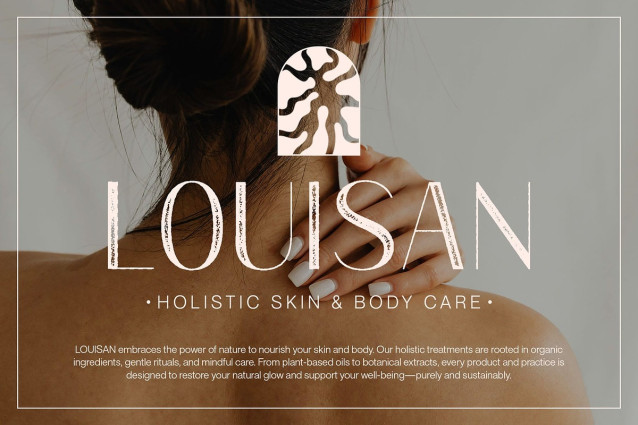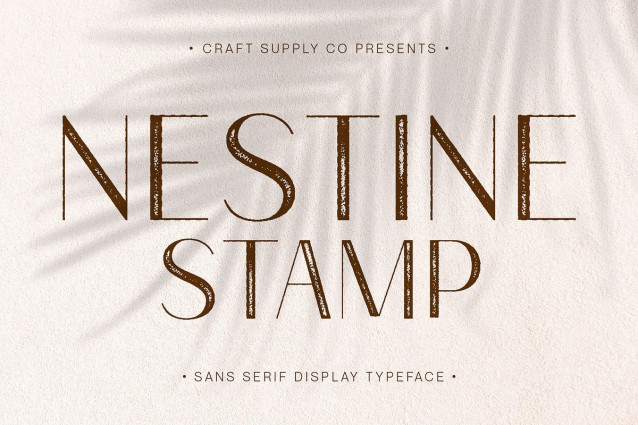
Nestine Stamp Font
Nestine Stamp Font is a modern sans-serif font that embraces clean lines and minimalist shapes, infused with a distinctive stamp texture. Its refined structure meets raw character, creating a typeface that feels both elegant and expressive.
Elegant Minimalist Form At its core, Nestine Stamp features a minimalist form with balanced proportions and sleek geometry. This clean foundation gives the font a professional and versatile aesthetic suitable for high-end branding and editorial layouts.
Textured Stamp Effect for Artistic Personality The subtle yet impactful stamp effect adds a layer of visual depth and handcrafted charm. It introduces a weathered, tactile feel that makes each letterform feel unique—perfect for designs that seek to blend sophistication with artistic flair.
Captivating and Refined Visual Identity Nestine Stamp walks the line between polished and personal, making it an excellent choice for visual identities that want to stand out without sacrificing elegance. From fashion brands to creative studios, it helps tell stories with texture and grace.
Perfect for Premium and Expressive Designs Whether used in upscale branding, thoughtful editorial spreads, or stylish packaging, Nestine Stamp adds character without overwhelming the content. It’s ideal for projects that require a refined tone with a hint of creative boldness.